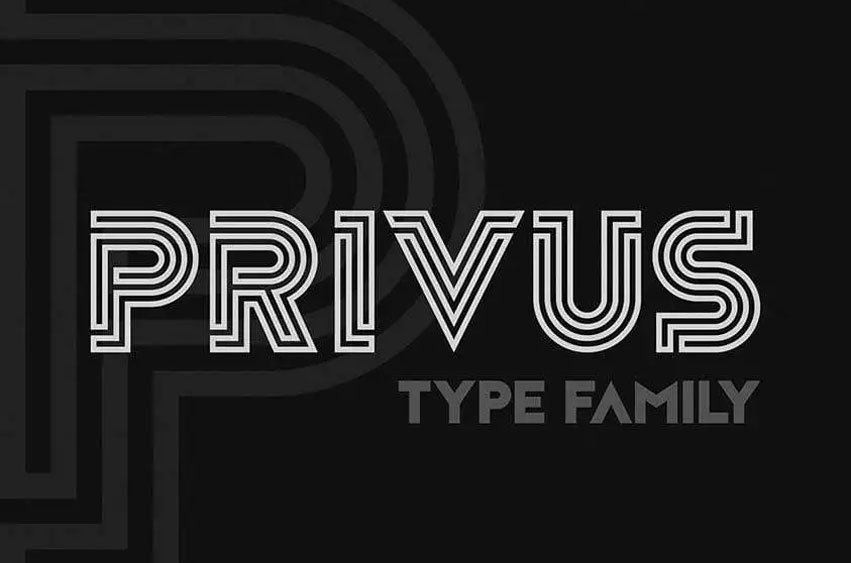
Privus Font is a geometric display type family inspired by mazes, twists and turns. Great for posters, logos, web and book titles, etc..
Privus was meticulously crafted using uppercase letters, numbers and punctuation marks to ensure perfection.